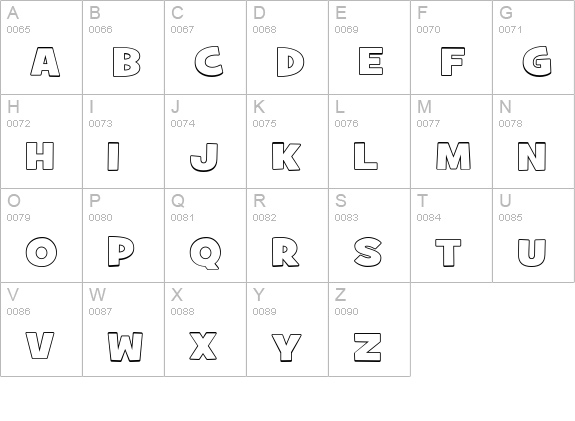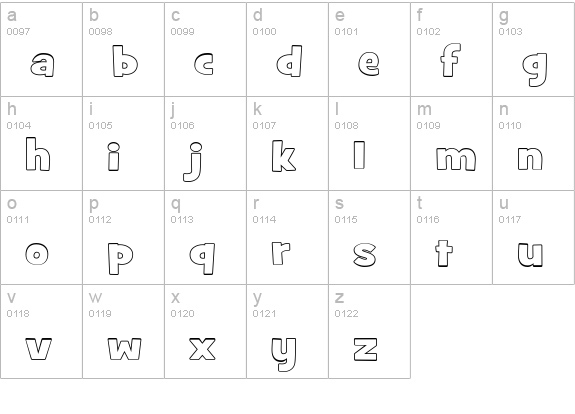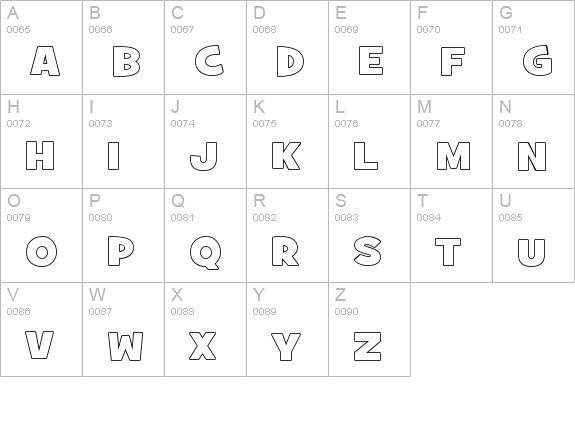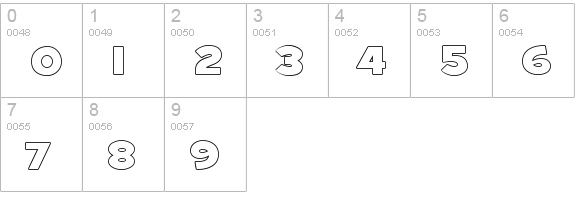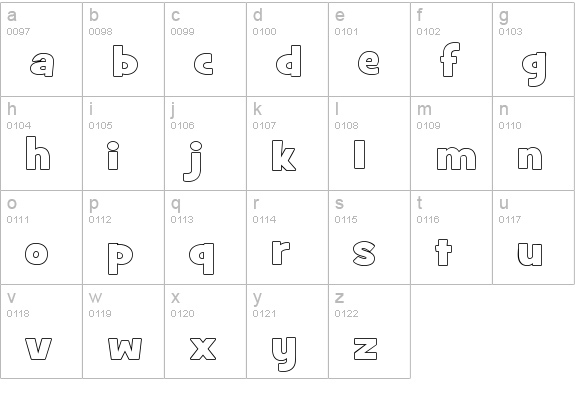
GrilledCheese BTN Out Wide is a distinctive, extended-width variant in the GrilledCheese typeface family \xE2\x80\x94 well suited to design and typography projects.
GrilledCheese BTN Out Wide font is a charming and whimsical typeface that adds a touch of playfulness to any design project. With its bold and wide letterforms, this font is perfect for making a statement and grabbing attention. Whether you're working on a poster, logo, or branding materials, GrilledCheese BTN Out Wide will bring a fun and quirky vibe to your work. The best part? GrilledCheese BTN Out Wide is available for free download at FontsMarket.com. You can easily add this unique font to your collection without any cost, making it a valuable resource for designers looking to spice up their projects with a touch of creativity. Don't miss out on the opportunity to enhance your designs with the delightful GrilledCheese BTN Out Wide font today!